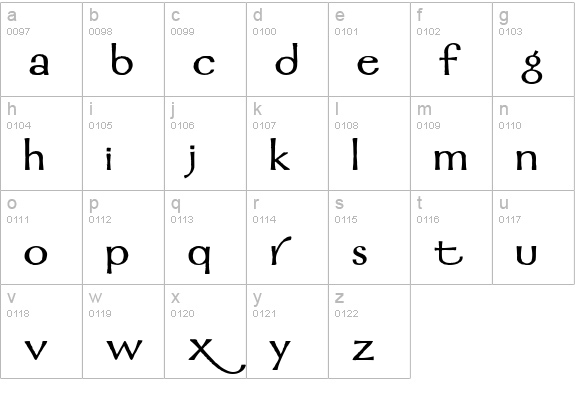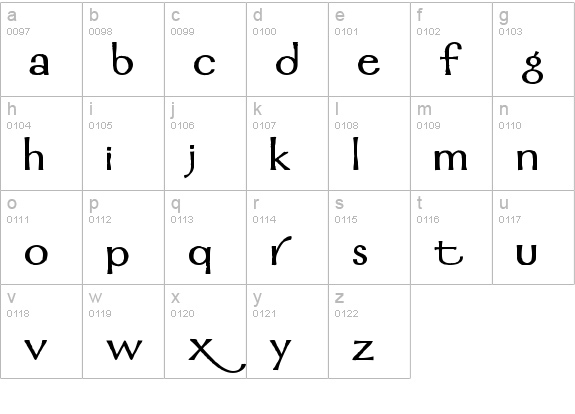
Mordred Demi Bold is a sub-bold, structured variant in the Mordred typeface family \xE2\x80\x94 well suited to sub-headlines and emphasised passages.
Mordred Demi Bold font exudes a perfect balance between modernity and sophistication. Its bold and striking letterforms command attention while maintaining a refined elegance. This versatile typeface is ideal for a wide range of design projects, from branding to editorial layouts. With its clean lines and strong presence, Mordred Demi Bold effortlessly captures the essence of contemporary design trends. What sets Mordred Demi Bold font apart is not just its impeccable design, but also its accessibility. This font is available for free download at FontsMarket.com, making it easily accessible to designers and creatives looking to elevate their projects. Whether you're working on a logo, poster, or website, Mordred Demi Bold font is sure to make a lasting impression. Embrace the power and versatility of Mordred Demi Bold font in your next project and experience the impact of a well-crafted typeface that seamlessly combines style and functionality. Download it for free today at FontsMarket.com and unlock a world of design possibilities at your fingertips.